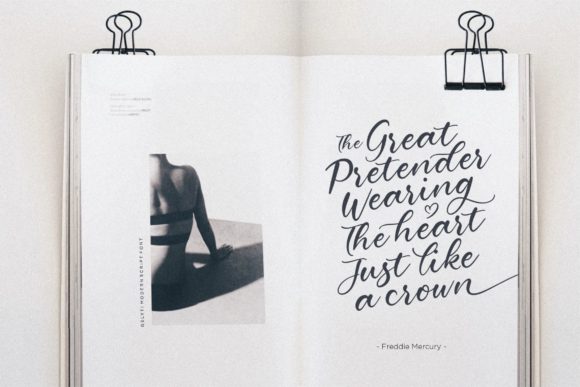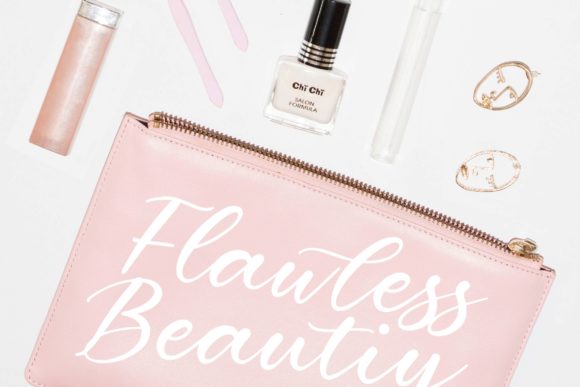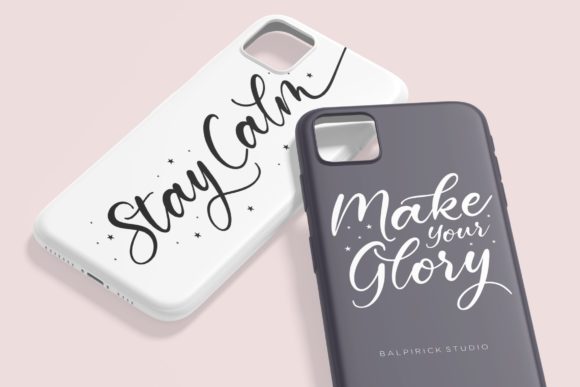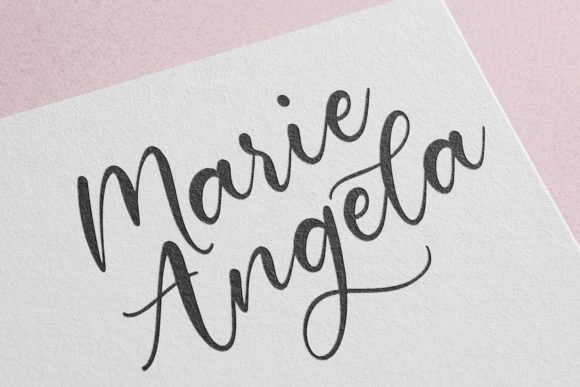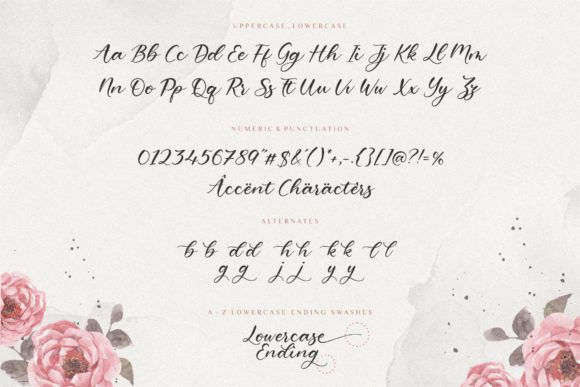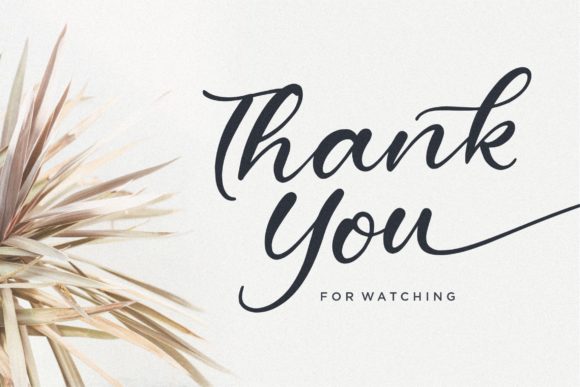
Introducing Gelyti Font: The Elegant and Dainty Handwritten Font for Crafty Ideas
In the world of typography, a font can make or break a design. For crafty enthusiasts, designers, and DIY experts, finding the perfect font that adds a touch of elegance and whimsy to their projects can be a daunting task. That’s where Gelyti Font comes in – an exquisite handwritten font that features sweet and delicate swashes, perfect for a wide range of crafty ideas.
What Makes Gelyti Font Special?
Gelyti Font is an original, elegant, and dainty handwritten font that boasts a unique and charming look. Its sweet and delicate swashes add a touch of sophistication and refinement to any design project. Whether you’re working on letterheads, titles, stationery, or any other crafty project, Gelyti Font is sure to impress.
One of the standout features of Gelyti Font is its PUA (Private Use Area) encoding. This means that users can access all the glyphs and swashes with ease, making it simple to incorporate this beautiful font into their designs. The PUA encoding allows for effortless access to the font’s extended character set, including ligatures, swashes, and other special characters.
Perfect for Crafty Ideas
Gelyti Font is a versatile font that can be used for a wide range of crafty ideas, including:
- Letterheads and Titles: Add a touch of elegance to your letterheads, titles, and headings with Gelyti Font’s delicate swashes and sweet handwritten style.
- Stationery: Create beautiful stationery, including invitations, greeting cards, and thank-you cards, with Gelyti Font’s charming and whimsical design.
- DIY Projects: Use Gelyti Font to add a personal touch to your DIY projects, such as scrapbooking, journaling, and craft tutorials.
Why Designers and Crafters Love Gelyti Font
Designers and crafters love Gelyti Font for its unique and elegant design, which adds a touch of sophistication to any project. Here are just a few reasons why:
- Elegant and Dainty: Gelyti Font’s sweet and delicate swashes make it perfect for designers and crafters who want to add a touch of elegance to their projects.
- Easy to Use: The PUA encoding makes it simple to access all the glyphs and swashes, allowing users to focus on their design rather than struggling with font complexities.
- Versatile: Gelyti Font can be used for a wide range of projects, from letterheads and titles to stationery and DIY projects.
Tips for Using Gelyti Font
To get the most out of Gelyti Font, here are a few tips:
- Experiment with Swashes: Don’t be afraid to experiment with the font’s swashes and glyphs to create unique and eye-catching designs.
- Pair with Other Fonts: Try pairing Gelyti Font with other fonts to create interesting and contrasting designs.
- Use for Headings and Titles: Use Gelyti Font for headings and titles to add a touch of elegance and sophistication to your designs.
Gelyti Font is a beautiful, elegant, and dainty handwritten font that features sweet and delicate swashes. Perfect for crafty ideas, this font is sure to impress designers and crafters alike. With its PUA encoding and versatile design, Gelyti Font is a must-have for anyone looking to add a touch of elegance and whimsy to their projects.